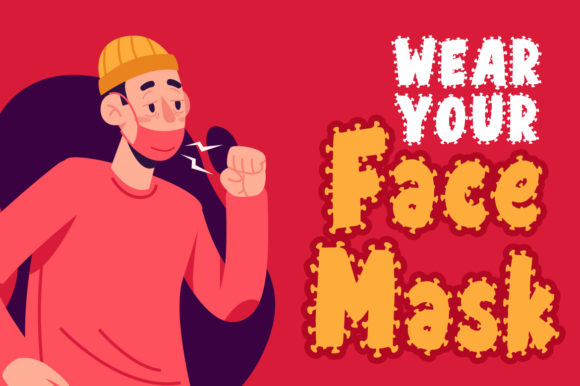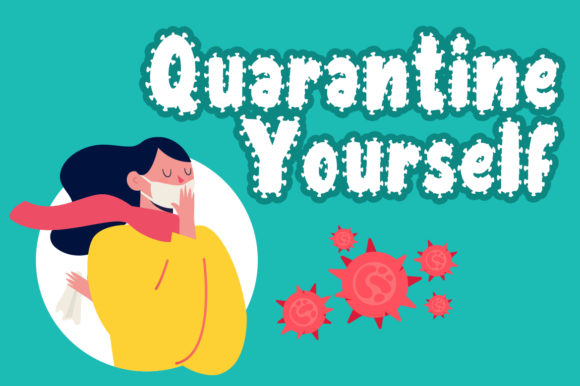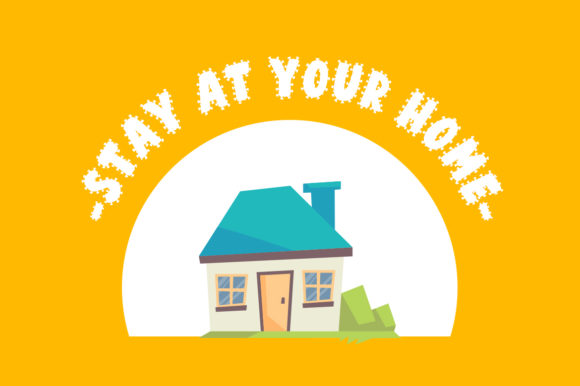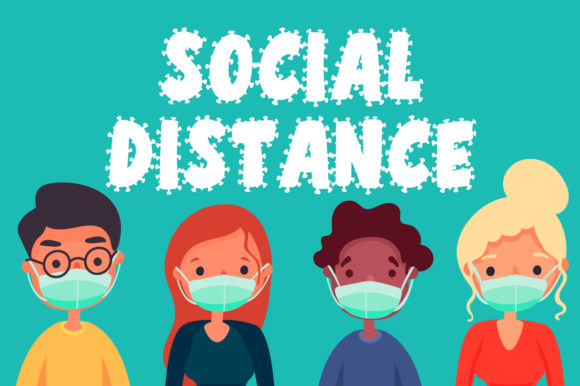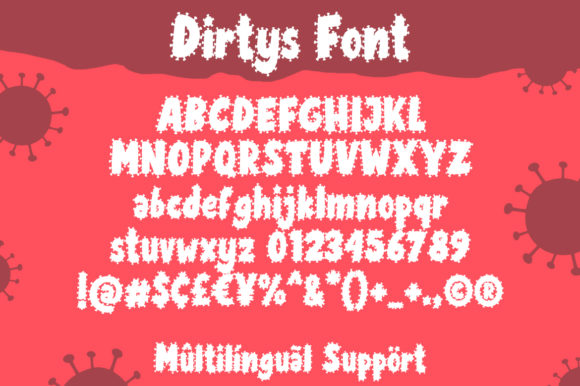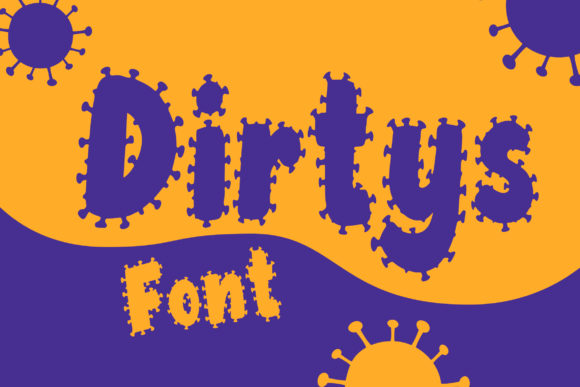
Introducing Dirty’s Font: The Ultimate Modern and Bold Display Font
Are you a designer or crafter looking for a font that can elevate your brand, social media, or DIY projects to the next level? Look no further than Dirty’s Font, a modern and bold display font that’s perfect for making a statement. In this article, we’ll dive into the features and benefits of Dirty’s Font, and explore how it can be used to take your creative projects to new heights.
What is Dirty’s Font?
Dirty’s Font is a modern and bold display font that’s designed to grab attention. With its sleek and edgy design, this font is perfect for creating logos, branding materials, social media graphics, and crafty DIY projects. Whether you’re a professional designer or a DIY enthusiast, Dirty’s Font is a versatile and easy-to-use font that can help you achieve your creative goals.
Key Features of Dirty’s Font
So what makes Dirty’s Font so special? Here are some of its key features:
- Modern and Bold Design: Dirty’s Font has a sleek and modern design that’s perfect for creating eye-catching graphics and logos.
- Highly Versatile: This font is perfect for a wide range of creative projects, from logos and branding to social media graphics and DIY projects.
- Easily Customizable: With Dirty’s Font, you can easily customize the font to fit your brand’s style and aesthetic.
Benefits of Using Dirty’s Font
So why should you choose Dirty’s Font for your creative projects? Here are some of the benefits of using this font:
- Stand Out from the Crowd: With its bold and modern design, Dirty’s Font can help you create graphics and logos that stand out from the crowd.
- Save Time and Effort: This font is easy to use and customize, saving you time and effort on your creative projects.
- Consistency Across Platforms: With Dirty’s Font, you can ensure consistency across multiple platforms and devices.
- Professional-Looking Results: This font is designed to deliver professional-looking results, even for DIY enthusiasts and beginners.
Examples of Dirty’s Font in Action
Here are some examples of how Dirty’s Font can be used in different creative projects:
- Logos and Branding: Use Dirty’s Font to create a bold and modern logo that stands out from the crowd.
- Social Media Graphics: Use this font to create eye-catching social media graphics that grab attention.
- DIY Projects: Use Dirty’s Font to add a personal touch to your DIY projects, such as handmade cards and invitations.
In conclusion, Dirty’s Font is a modern and bold display font that’s perfect for designers and crafters looking to elevate their creative projects. With its sleek and edgy design, this font is highly versatile and easy to use. Whether you’re a professional designer or a DIY enthusiast, Dirty’s Font is a great choice for creating logos, branding materials, social media graphics, and crafty DIY projects.